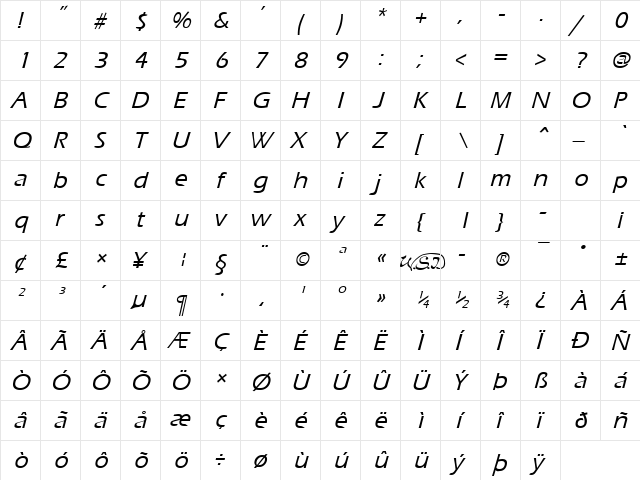
Ergoe-Mild Italic
Design Context for Ergoe-Mild Typeface
Ergoe-Mild is a composed and adaptable typeface that performs quietly and consistently across a wide range of design contexts. The slanted form adds forward momentum and visual energy.
Pro Tip: Try Ergoe-Mild for annotation and caption copy alongside an upright companion — the contrast in angle creates a dynamic but ordered typographic system.